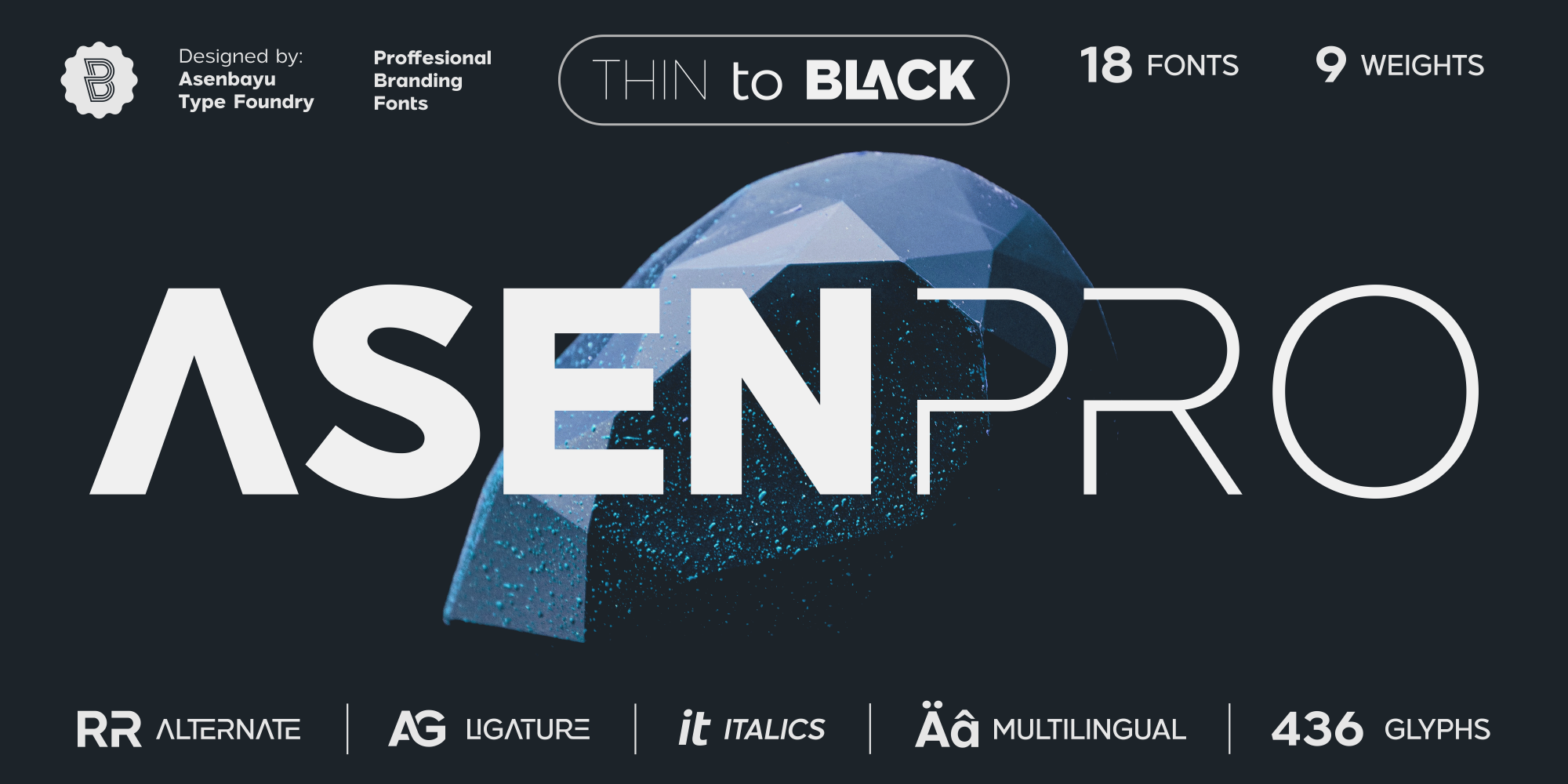
Asen Pro Font is perfect for corporate branding, professional presentations, annual reports, business cards, website headers, mobile applications, editorial design, technical documentation, financial reports, architectural plans, legal documents, and any project that requires clean, professional typography with exceptional readability.
What makes Asen Pro Font exciting is its perfect balance between modern minimalism and professional sophistication. This versatile typeface features clean geometric forms with subtle humanist touches, making it an ideal choice for businesses and organizations seeking to communicate reliability and innovation. The font's excellent legibility across all sizes and mediums ensures consistent brand communication, while its contemporary aesthetic appeals to modern audiences expecting polished, professional design standards.
Asen Pro Font family includes comprehensive weight variations from thin to black, along with matching italics and extended character sets. The font family typically offers light, regular, medium, bold, and black weights, providing designers with complete typographic flexibility for creating hierarchical information structures and dynamic visual compositions that maintain brand consistency.
Whether you're developing corporate identity systems, designing digital interfaces, or creating professional publications, Asen Pro Font Free Download provides the reliability and visual appeal that serious business communications demand. Its neutral yet distinctive character makes it suitable for technology companies, consulting firms, financial institutions, and professional service providers.
The font's versatility in both print and digital applications makes it an essential tool for any professional designer. With Asen Pro Font, your projects will convey competence, trustworthiness, and modern professionalism.